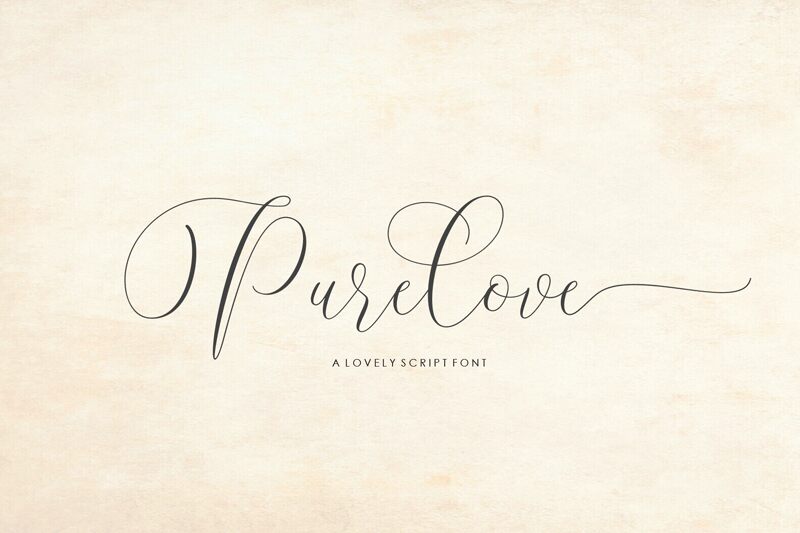
Pure Love, a creation of Moriztype, is a breathtaking ultra-light calligraphy font that exudes a sense of pure elegance and romance.
With its graceful curves and delicate strokes, Pure Love is perfect for wedding invitations, love letters, and heartfelt cards. This font type adds a touch of femininity to any project, making it ideal for beauty blogs, fashion magazines, and lifestyle websites targeting a female audience.
Whether used in branding or editorial design, Pure Love will captivate hearts with its timeless charm.